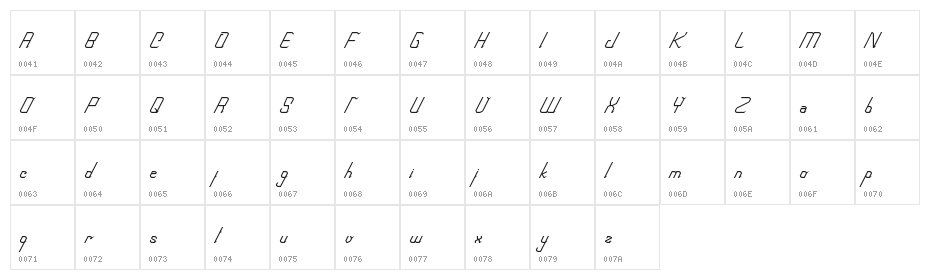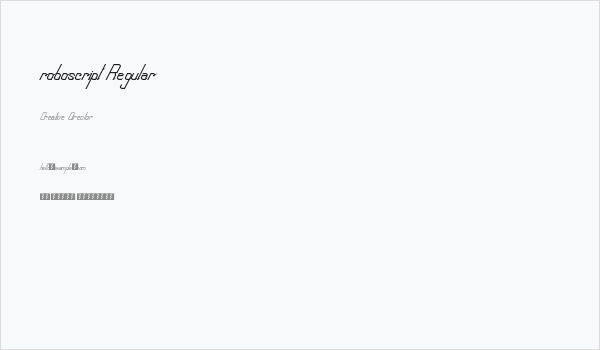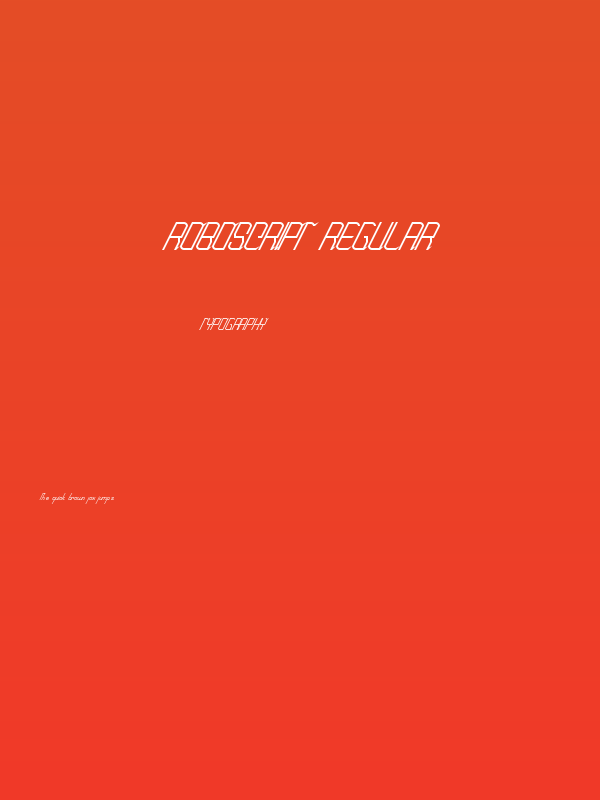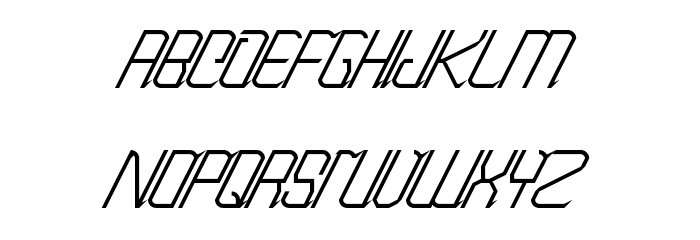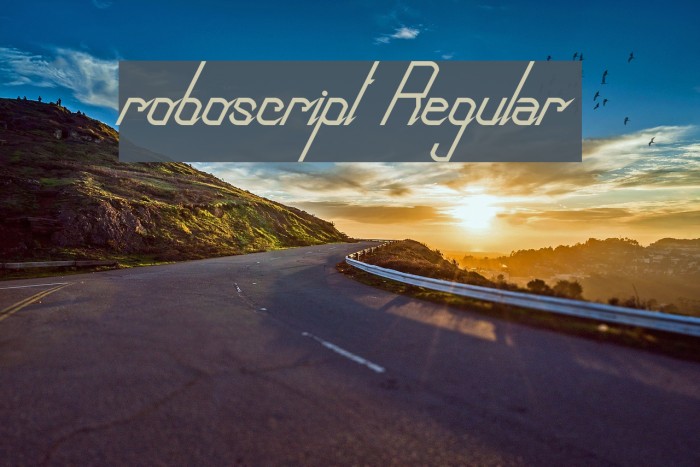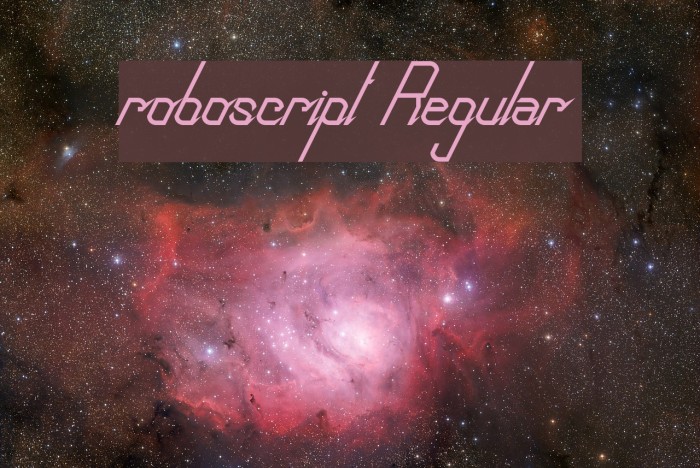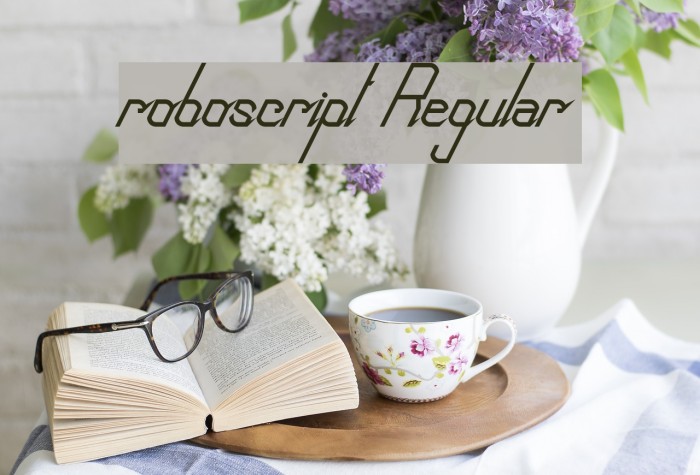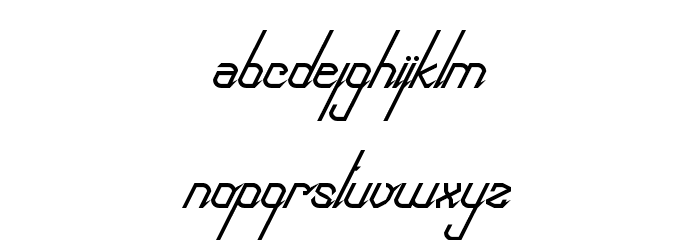
roboscript Regular Font
roboscript Regular Description
This font features a futuristic and angular design, characterized by its sharp edges and slanted orientation. The letters are elongated and narrow, giving a sleek and modern appearance. The uppercase and lowercase letters maintain a consistent style, with a distinct geometric influence that suggests a sense of motion and speed. The numerals and special characters follow the same stylistic cues, ensuring uniformity across all glyphs. This font is particularly suited for projects that require a contemporary and tech-inspired aesthetic.
| Proposed Projects | Ideal for technology branding, sci-fi themed designs, video game interfaces, and modern advertising campaigns. |